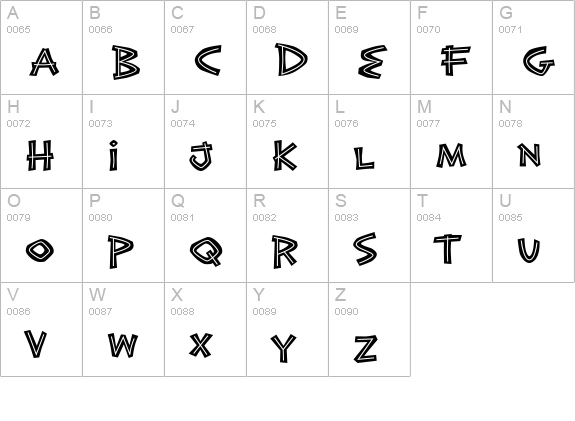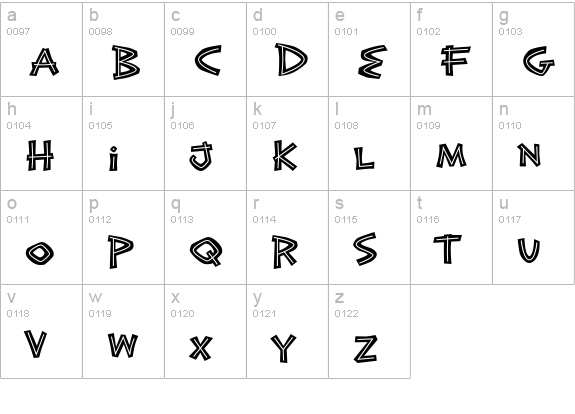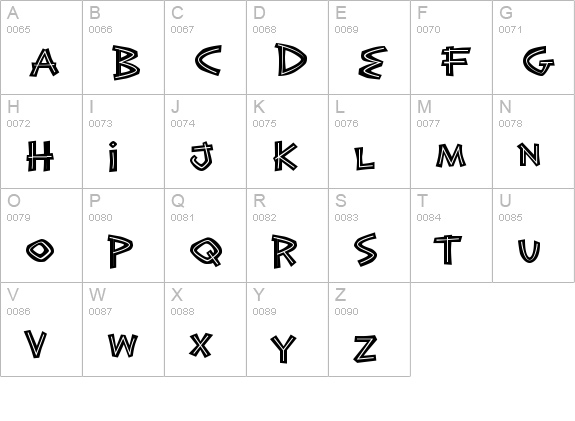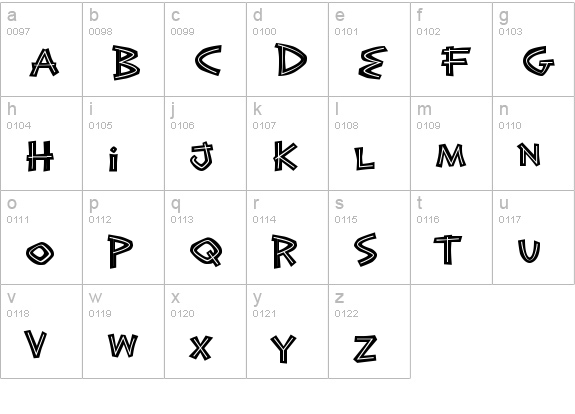
Exotic Island BTN Bold Inline Font Details
Exotic Island BTN Bold Inline is a strong, high-contrast variant in the Exotic typeface family \xE2\x80\x94 well suited to headlines, attention-grabbing titles, and strong calls-to-action.
Exotic Island BTN Bold Inline font is a captivating and eye-catching typeface that exudes a sense of adventure and mystery. Its bold and intricate design makes it perfect for adding a touch of exotic flair to your projects. The unique inline detailing adds a modern and stylish twist to this font, making it a versatile choice for a wide range of design applications. What's even better is that Exotic Island BTN Bold Inline font is available for free download at FontsMarket.com! This means you can easily add this stunning font to your collection without any cost. Whether you're working on a branding project, poster design, or website, Exotic Island BTN Bold Inline font is sure to make a bold statement and leave a lasting impression. Download it today and unleash your creativity with this exotic and captivating typeface.